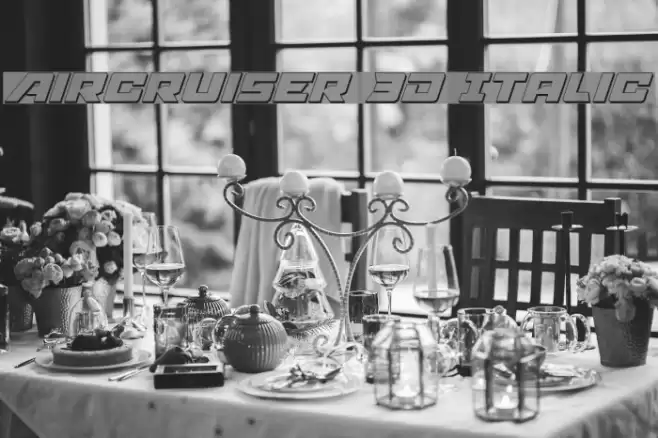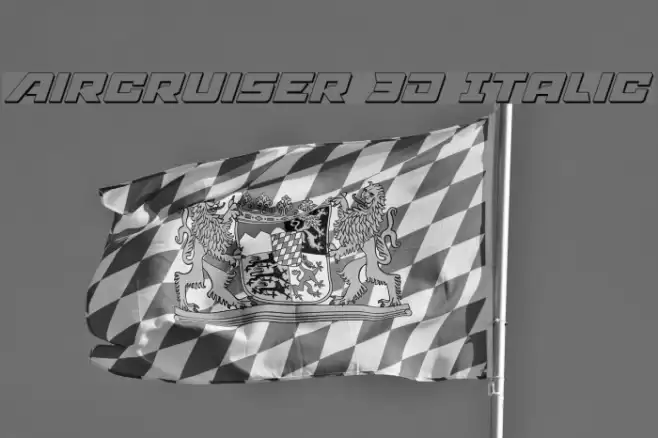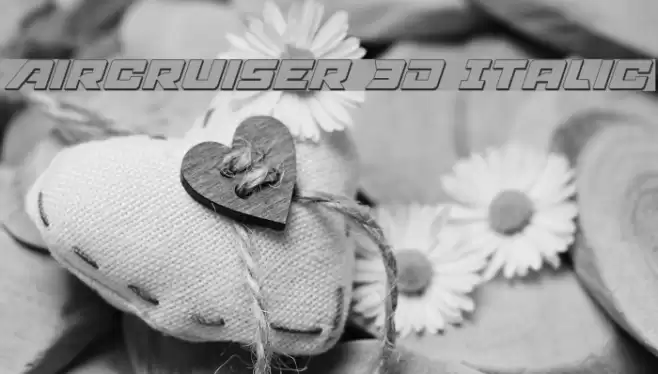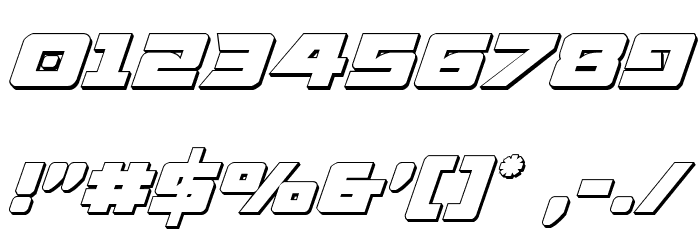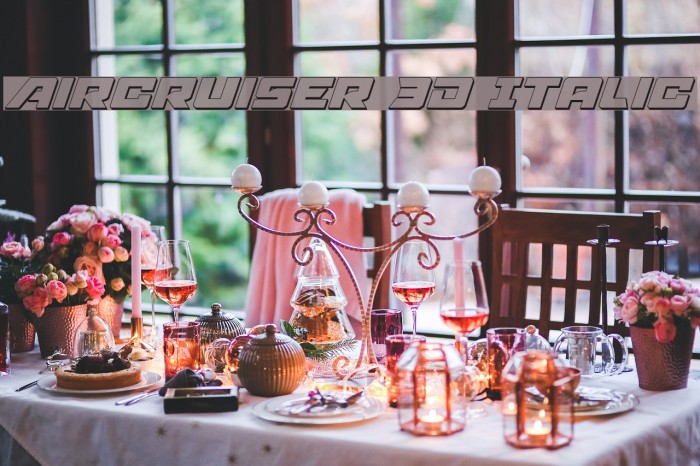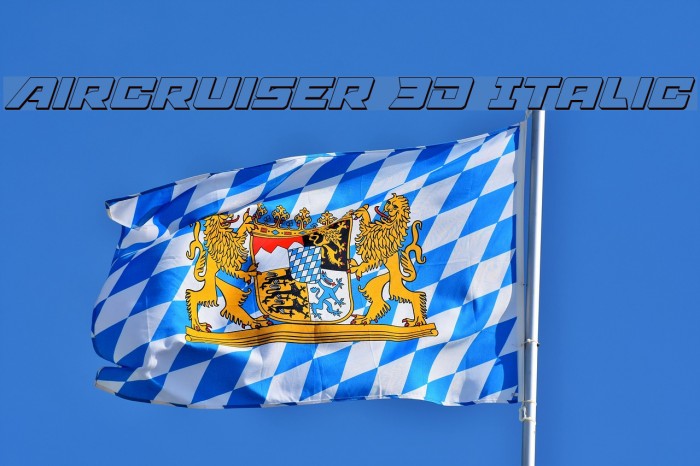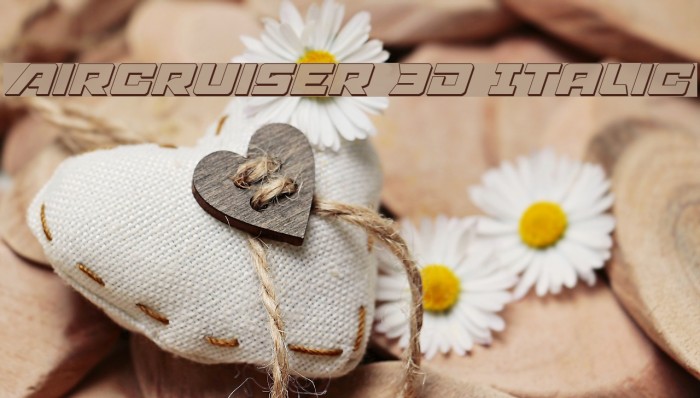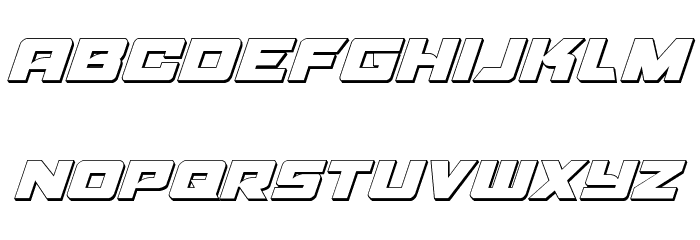
Aircruiser 3D Italic Font
Aircruiser 3D Italic Description
This font features a bold, three-dimensional design with an italic slant, giving it a dynamic and futuristic appearance. The characters are outlined, creating a hollow effect that enhances the 3D illusion. The angular and geometric shapes of the letters contribute to a modern and tech-inspired aesthetic. The uppercase and lowercase letters maintain a consistent style, with sharp edges and a uniform stroke width. The numerals and special characters follow the same design principles, ensuring a cohesive look across all glyphs.
A bold, 3D italic font with a futuristic and geometric style from Uncategorized fonts.
- Proposed Projects: Ideal for projects requiring a modern and tech-savvy look, such as video game titles, technology branding, or sci-fi themed posters.
- Overall Style: Futuristic